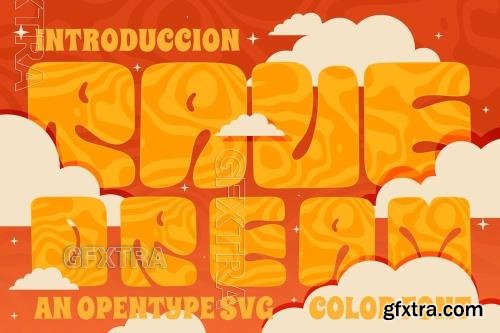
Rave Dream font
Rave Dream is a bold, psychedelic typeface bursting with maxi-style curves and retro energy. Inspired by vibrant 90s rave culture and dreamy neon lights, its oversized, flowing letterforms create a hypnotic, trippy aesthetic. Perfect for posters, album covers, and festival branding, Rave Dream electrifies designs with its nostalgic yet futuristic, high-energy vibe.